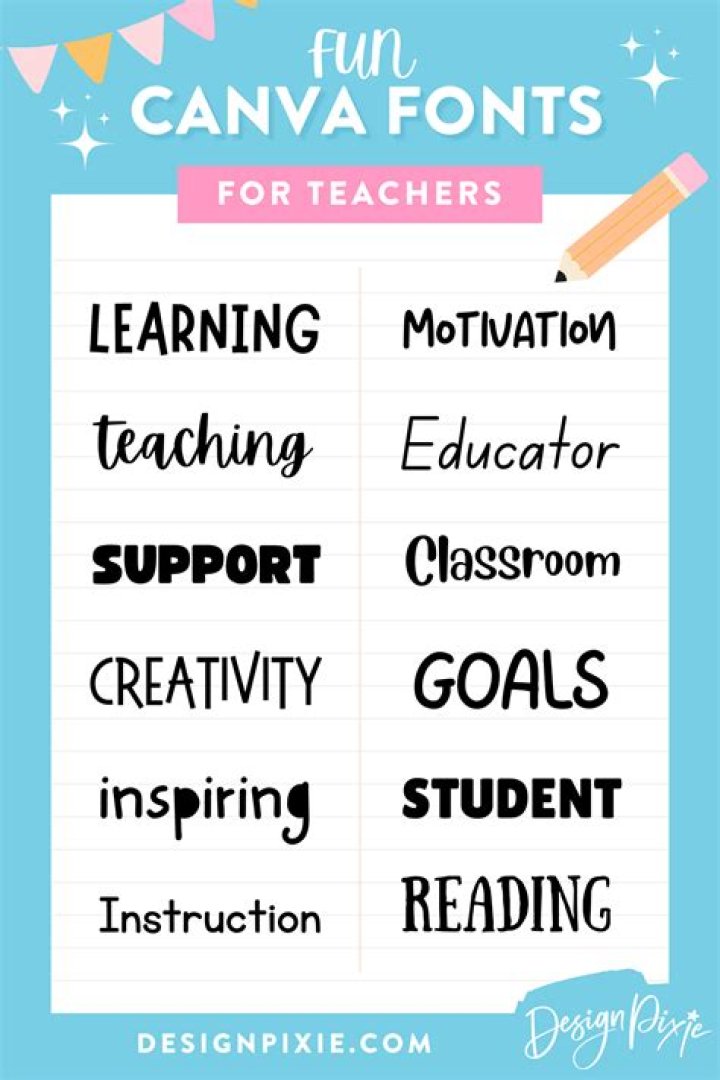
- Sassoon Primary.
- Gill Sans Infant.
- Bembo Infant.
- Plantin Infant.
- Andika – free Google font.
- Futura – available on most computers.
- KG Neatly Printed Font – free for personal use.
Correspondingly, what font is good for kindergarten?
Comic Sans the rounded, sans serif font, with a single storey 'a' and a simplified 'g' has often been the go-to choice for teachers looking to create teaching and learning materials.
Additionally, what font uses a normal A? Comic Sans deliberately
Also, what is the best font for children's books?
The efforts of new readers can be supported by making sure their texts use inviting, easy-to-read typefaces, set in the most readable way. Sassoon Primary, Gill Sans Infant, Bembo Infant and Plantin Infant are all good choices for young readers.
What font is best for studying?
Arial
What font is easier read?
Helvetica. Along with Georgia, Helvetica is considered to be one of the most easily read fonts according to The Next Web. This is a sans-serif font and one of the world's most popular typefaces — a modern classic.Is there a font that looks like a child handwriting?
Kidprint. The Kidprint font is designed to look like a child´s printing. Kidprint is useful any time a playful or whimsical look is required.What is the best font for handwriting?
20 Best Free Handwriting Fonts for 2018- Amatic SC. Amatic SC (Small Caps) is a simple but effective hand drawn webfont.
- Indie Flower. Beautiful handwriting font, with excellent readability.
- Kalam. An informal style handwriting font optimized for web usage.
- Kristi.
- Permanent Marker.
- Daniel.
- Marck Script.
- Desyrel.
What is the best font for letters?
Basic fonts like Arial, Cambria, Calibri, Verdana, Courier New, and Times New Roman work well. Avoid novelty fonts like Comic Sans, or fonts in script or handwriting-style.What is a good font for notes?
You can use any font you like something that is readable and not annoying. But the ideal combination is Serif Headings and Sans serif body. For example 'Georgia' headings and 'Arial' in the body you can also use Sans fonts for headings and serif for the body.What font size is used in children's books?
Rather than the standard 11 or 12pt font for chapter books, a larger font should be used for children's books. When laying out your book, try using font sizes 16-24pt. For the youngest age groups, a larger font is especially important, while older age groups can be smaller.How can I add a font to Word?
What font is used in Montessori?
The font used to present documents on the shop is the cursive font, however you have the option of choosing the font of your choice, Script (split letters) or Cursive (attached letters).What font is similar to Zaner Bloser?
6. Outline Clear Teacher Font - Free teacher trace font download. Outlined letters are close to Zaner-Bloser style so students trace inside following the lines. The ideal font to create handwriting work and name writing practice worksheets.Why do teachers use Comic Sans?
As readability for dyslexic students was the chief reason for teachers saying they used Comic Sans, this is handy.What size font should you use for the essay?
Use a plain serif (e.g. Times New Roman) or sans serif (e.g. Arial) font. A serif font is easier to read. Suggested sizes are 12 for the text and 14 for headings. DO NOT change fonts in the course of writing the essay.How do I install a font into Word on a Mac?
What font is rounded?
Rounded typefaces have rounded corners and/or terminals. Their softness tends to make them feel friendly and inviting. Sans-serif fonts usually come to mind when you think of rounded fonts, but there are rounded serif typefaces as well. Rounded fonts are often found on food packaging and content aimed at children.What can I use instead of Comic Sans?
Eight font alternatives to Comic Sans- Also known as, 'Comic Sans … it's not a funny font, so stop annoying designers'
- Lato. “Lato is a sans serif typeface family started in the summer of 2010 by Warsaw-based designer Łukasz Dziedzic (“Lato” means “Summer” in Polish).
- Ubuntu.
- Asap.
- Varela Round.
- Quicksand.
- Dosis.
- Comfortaa.
Which font is best for dyslexics?
Times Newer Roman looks a lot like the go-to academic font, but each character is subtly altered to be 5 to 10 percent wider, making your essays look longer without having to actually make them longer.Which is easier to read Arial or Calibri?
Serif vs sans serif fontsSerif fonts are those with the twiddly strokes at the ends of characters (eg Times New Roman, Minion). There is an argument that serif fonts are more distinctive than sans serif fonts (without strokes, eg Arial, Calibri), and are therefore easier to read.